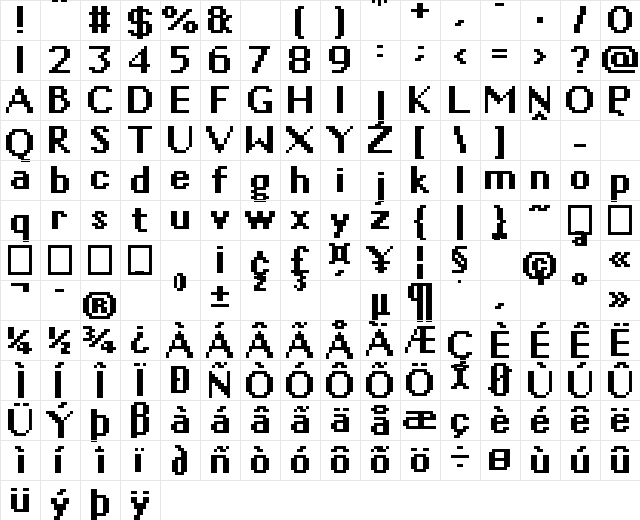
01Phonetix Bold
Design Context for 01Phonetix Typeface
01Phonetix offers clean, dependable letterforms without strong stylistic allegiance, making it a practical choice for designers who need flexibility. The heavy weight commands attention and anchors typographic hierarchies.